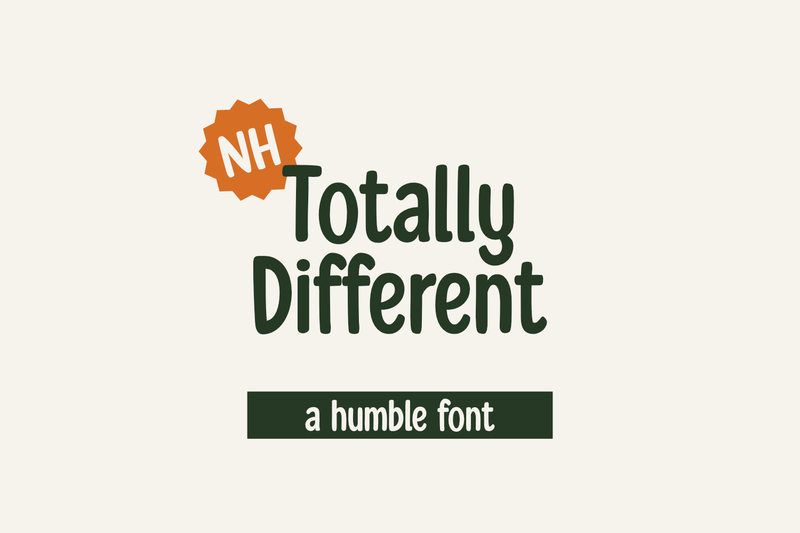
Totally Different - a Humble Font
Totally Different is a clean and neat display font. This adaptable font will look great on a variety of design ideas. It will add a fun and friendly touch to each of your projects!